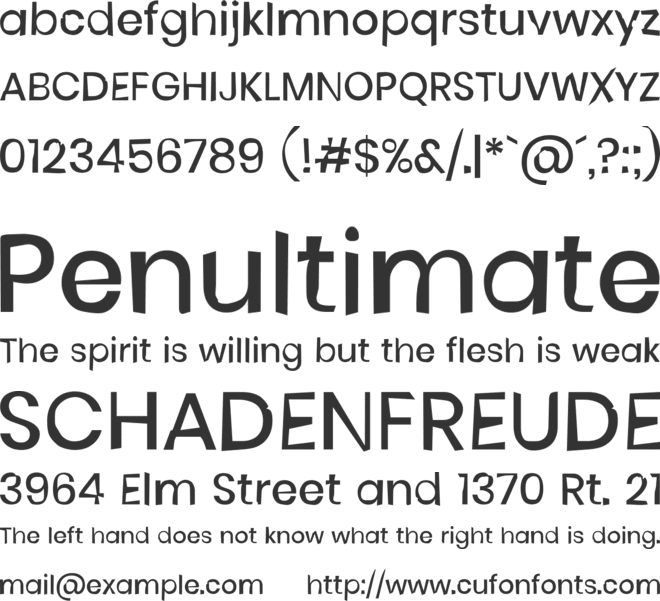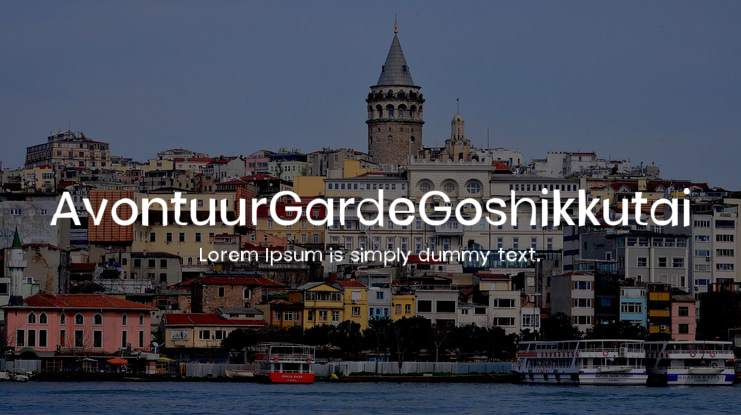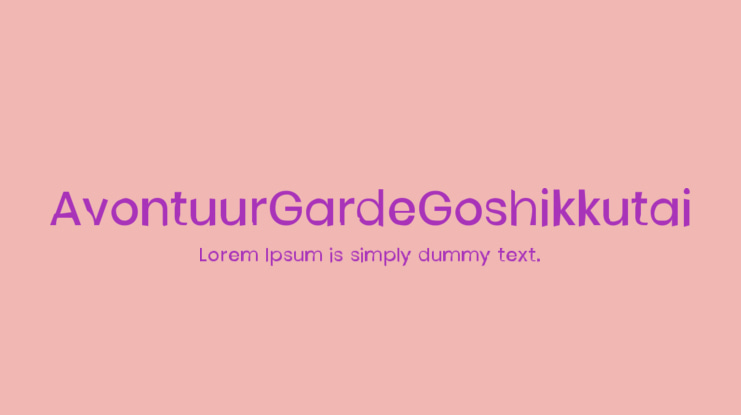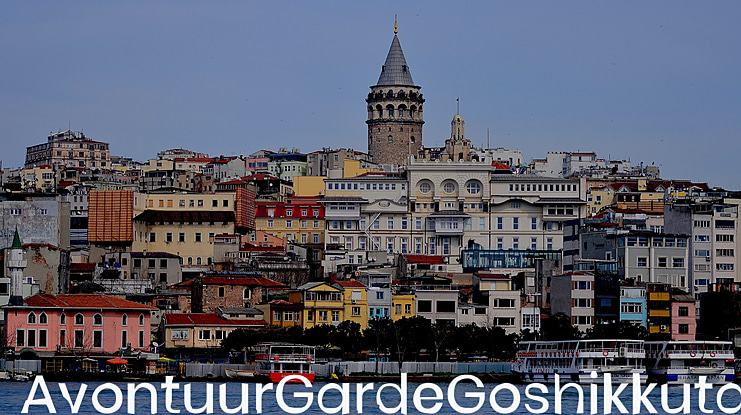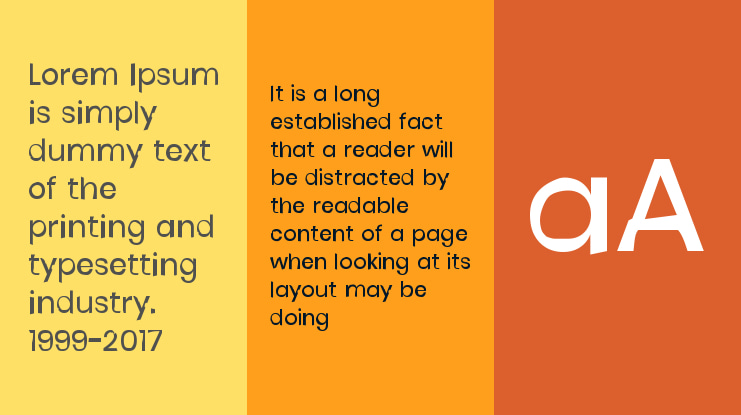
AvontuurGardeGoshikkutai Font
Avontuur Garde Gothic is a distorted font with a neat, clean Katakana letters. The letterforms are based on Indian Type Foundry's Poppins, while the Katakana letters are original